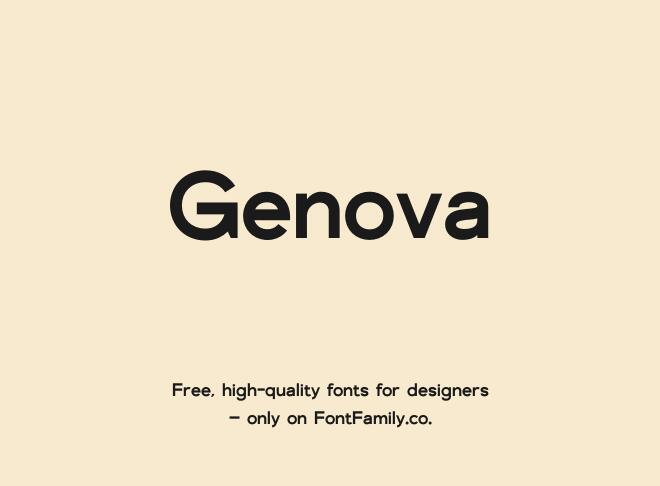
Genova Font
Genova Font, designed by Fontsmith Design Studio, is a geometric sans serif typeface with a modern and minimalistic style. Its clean lines and balanced forms make it a versatile choice for a wide range of design projects. Genova Font is reminiscent of classic geometric fonts, yet it brings a fresh, contemporary feel that sets it apart. Ideal for branding, web design, print projects, and more, it offers a professional look without sacrificing personality. The Genova Font is a perfect choice for designers who want to make a bold statement while maintaining readability and visual appeal. Its broad range of weights allows designers to create hierarchy and emphasis where needed. Choose Genova Font to bring a touch of modern sophistication to your designs.